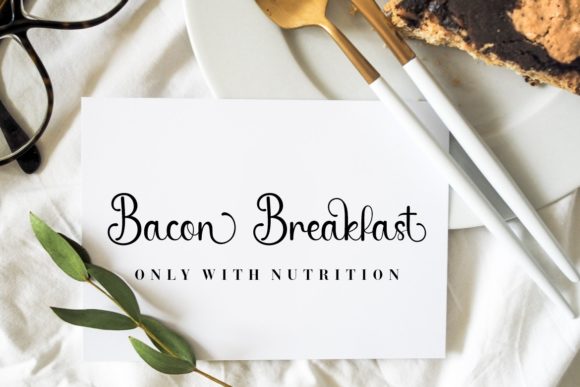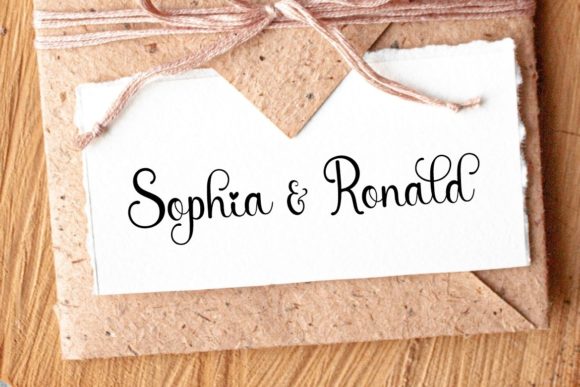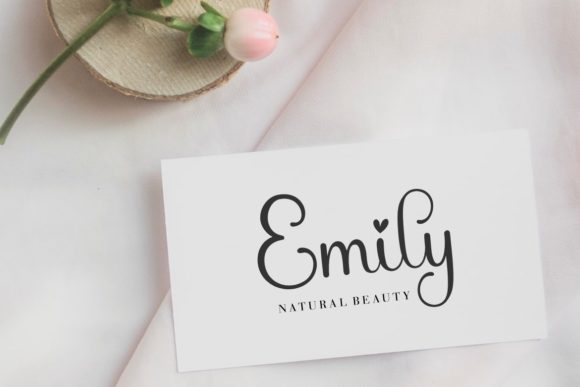
Introduction to Magdelin Font
Have you ever been working on a creative project, pouring your heart and soul into every detail, only to realize that the right font is missing to bring it all together? I know I have. That’s exactly what happened to me when I was designing a branding package for a new client. I had the perfect color scheme, the ideal layout, but something was off. And then, I stumbled upon the Magdelin Font – a modern and elegant script font that changed everything.
The Magdelin Font is more than just a design resource; it’s a game-changer for any creative project. With its neatly crafted and highly detailed design, it adds a touch of sophistication and class to any text. Plus, with its PUA encoding, you can access all glyphs and swashes with ease, giving you complete control over your design.
Key Features of Magdelin Font
- Magdelin Font features a unique, elegant design perfect for artistic and creative projects
Honest Review: Magdelin Font
I recently came across the Magdelin Font, and I must say it’s a great addition to any designer’s toolkit. This free download is perfect for creative projects that require a unique touch. With a high quality design, it’s no wonder this font has gained popularity among designers.
- ✨ Elegant and refined design: The Magdelin Font exudes sophistication and is ideal for projects that require a touch of elegance.
- ✨ Highly versatile: This font can be used for a wide range of creative projects, from branding to publishing.
- ✨ Transparent background: The font’s transparent background makes it easy to use in conjunction with other design elements.
- ⚠️ Limited character set: The Magdelin Font only includes a limited character set, which may not be suitable for all types of projects.
- ⚠️ Not suitable for body text: Due to its elegant design, the Magdelin Font may not be the best choice for large blocks of body text.
Overall, I’m impressed with the Magdelin Font. While it may have some limitations, its unique design and high quality make it a valuable resource for designers. If you’re looking for a free download to add some flair to your creative project, the Magdelin Font is definitely worth considering.
How to Use Magdelin Font
The Magdelin Font is a high-quality design resource ideal for various creative projects. Its unique style and versatility make it a popular choice among designers.
Tips for Getting the Most Out of Magdelin Font
To get the most out of the Magdelin Font, experiment with different font sizes, colors, and styles to create visually appealing designs. You can also use the font in conjunction with a transparent background for a unique look.
The Magdelin Font is commonly used in various creative projects, such as:
- Branding and logos
- Marketing materials